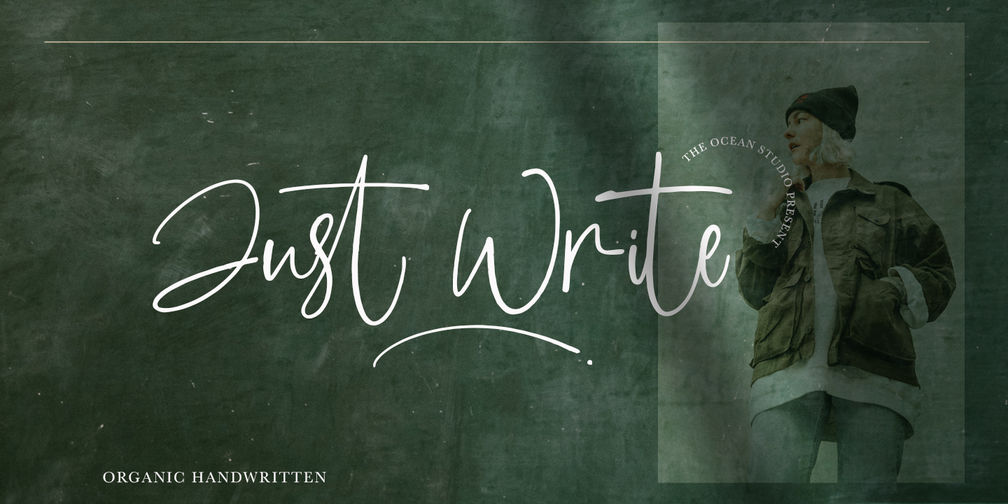
Just Write
Just Write is an organic handwritten script font that captures the beauty of natural, effortless expression. Designed to feel personal and authentic, this typeface brings the charm of real handwriting into your designs, making every word appear warm and full of character. Its smooth, flowing strokes combined with subtle imperfections create a relaxed yet confident look that feels both modern and timeless.
The font features a balanced rhythm between thick and thin lines, giving it a natural pen-written appearance while maintaining readability. Each letter connects seamlessly, allowing you to create fluid and expressive typography. It includes uppercase and lowercase letters, numbers, punctuation, and stylistic alternates for added versatility.
Perfect for branding, logos, social media, packaging, invitations, and quotes, Just Write adapts beautifully to both digital and print projects. Its organic style adds a genuine, human touch, making your designs feel more personal, stylish, and engaging.